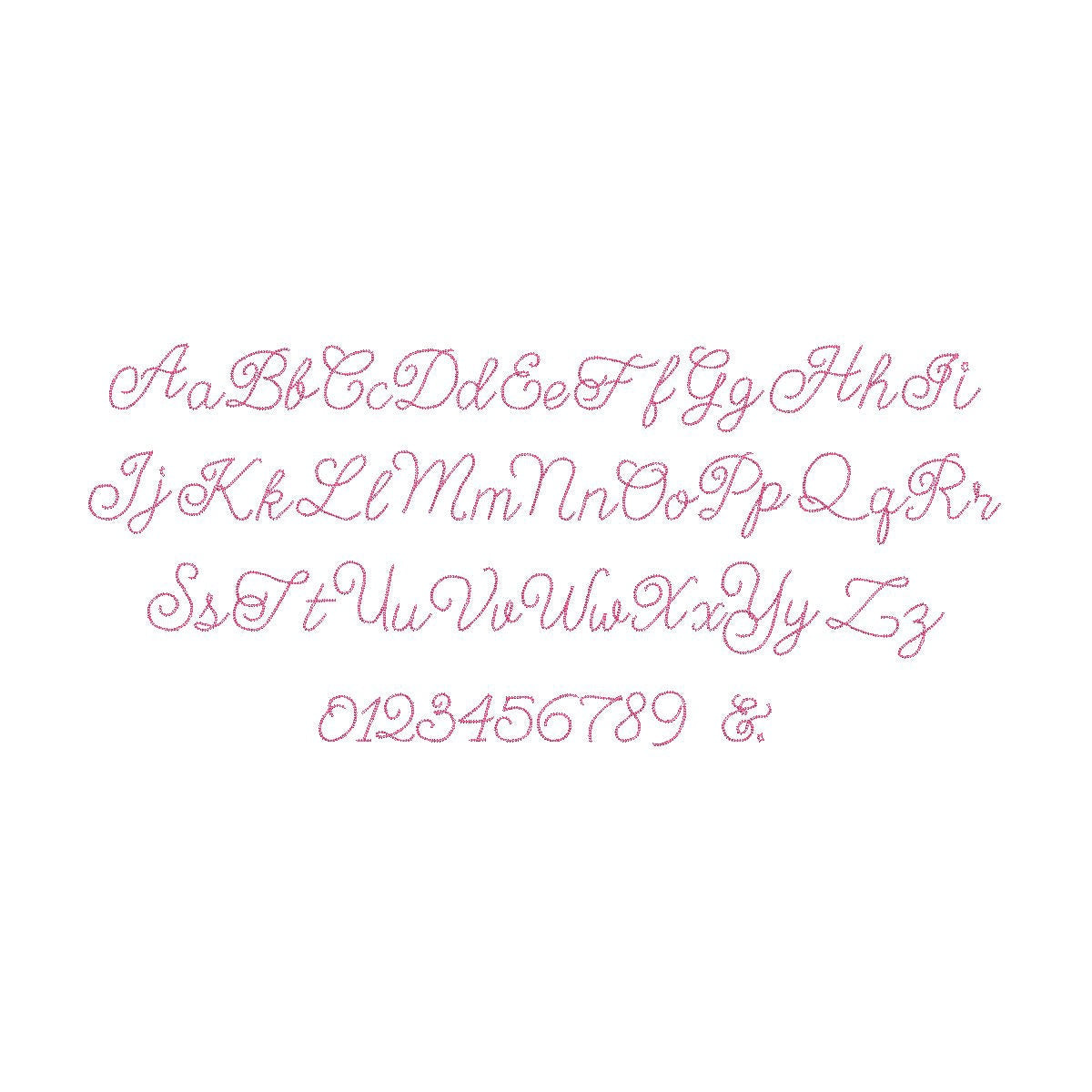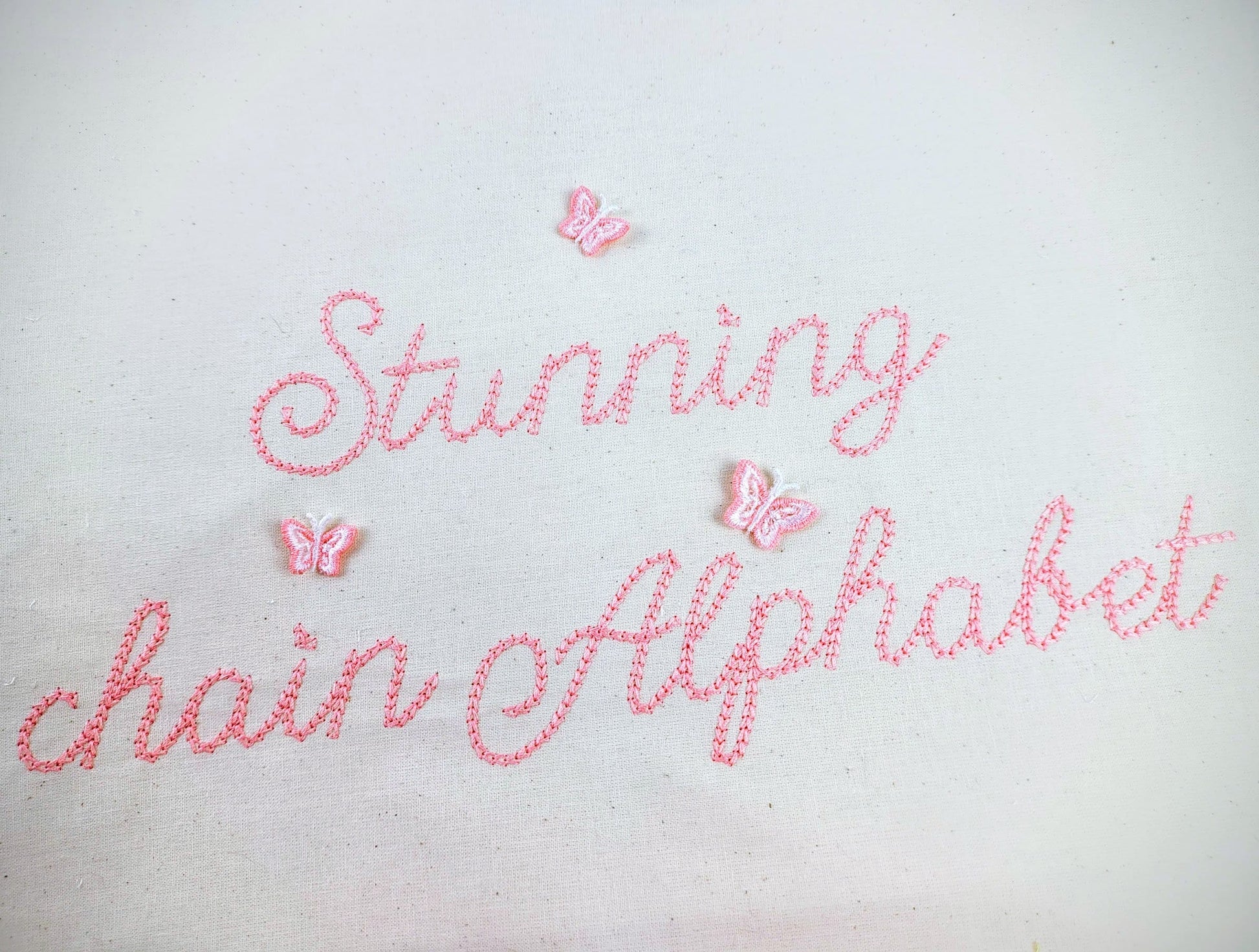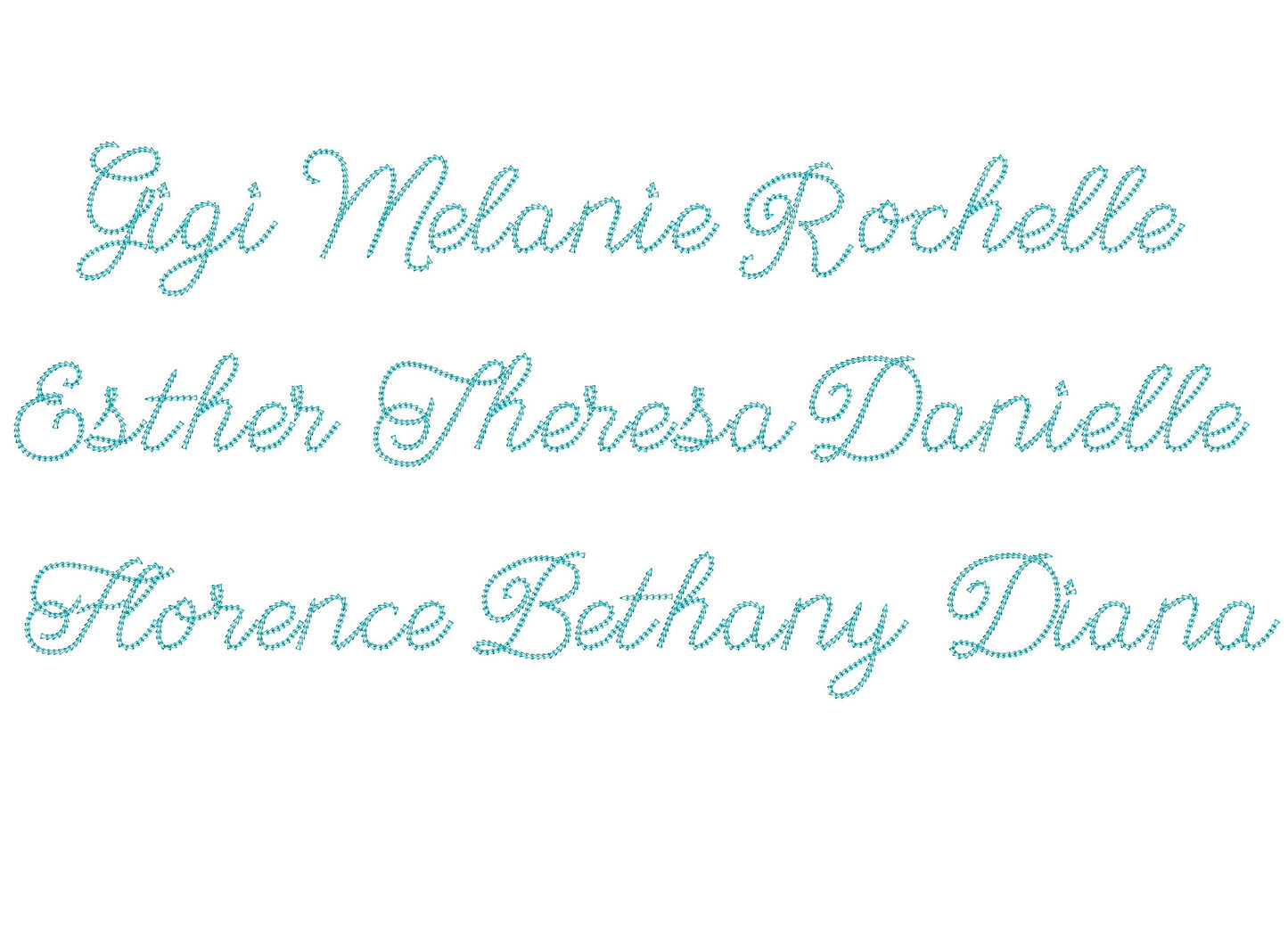
Quick Light Chain Stitch Script Handwritten Mini Font
A quick, light chain stitch script with a playful linked look. Great for kids' names, shirts, pillows and gifts.
• Light chain stitch script font